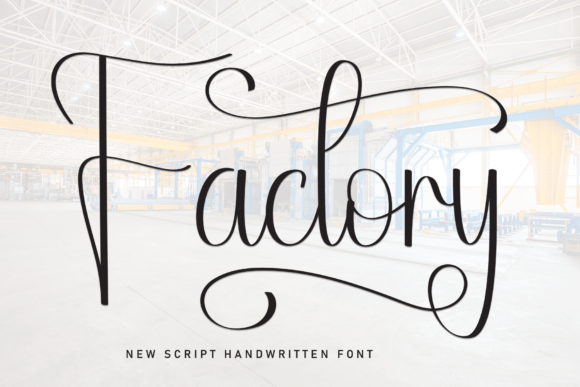
Introducing Factory Font, the enchanting script font that will transform your designs into captivating works of art. Inspired by the elegance of handwritten letters, Factory Font exudes a charm that will leave a lasting impression on your audience.
With its graceful curves, playful strokes, and an irresistibly sweet personality, Factory Font embodies the spirit of joy and celebration. It's the perfect choice for adding a touch of whimsy and delight to your wedding invitations, cards, social media posts, and any creative project that calls for a dash of enchantment.
Step into a world where words dance and stories unfold with Factory Font. Its flowing lines create an undeniable visual appeal, inviting your readers to embark on a journey of imagination and delight. Whether you're crafting heartfelt messages, heartfelt invitations, or enchanting designs, this font will add a touch of magic to your creations.
With Factory Font, you'll discover a treasure trove of creative possibilities. Its versatility knows no bounds, allowing you to effortlessly weave it into your projects and create designs that are as unique and captivating as your imagination.
Let Factory Font be your muse, guiding you to design masterpieces that resonate with your audience and leave them utterly charmed. Its enchanting energy will transform your words into visual symphonies, captivating hearts and minds with its irresistible allure.